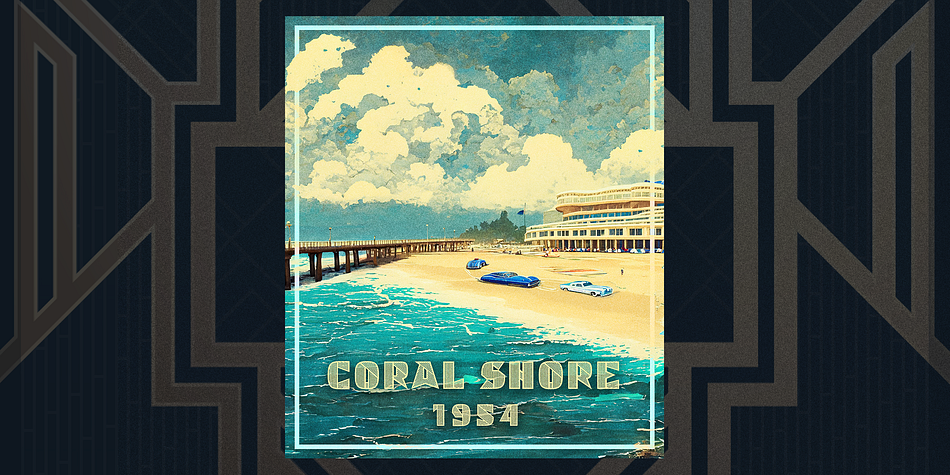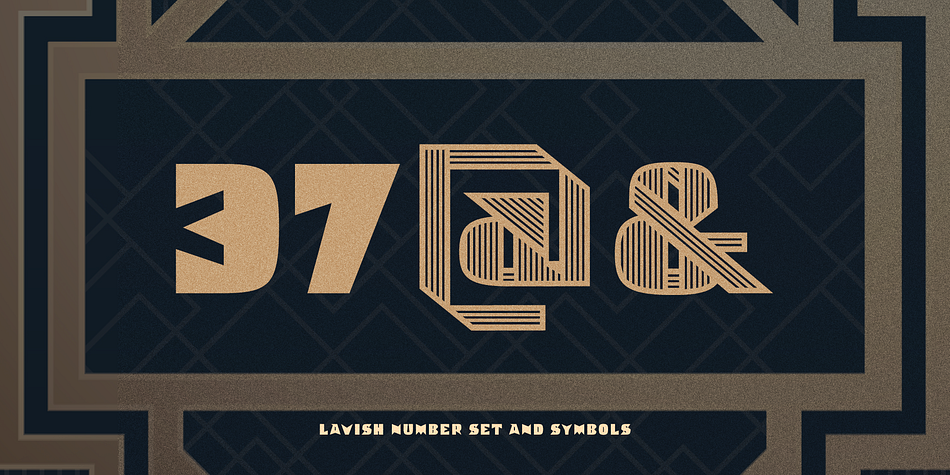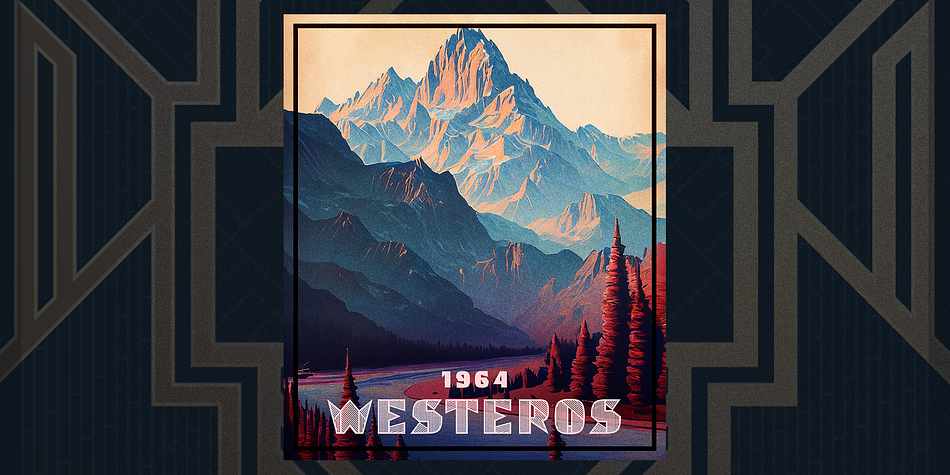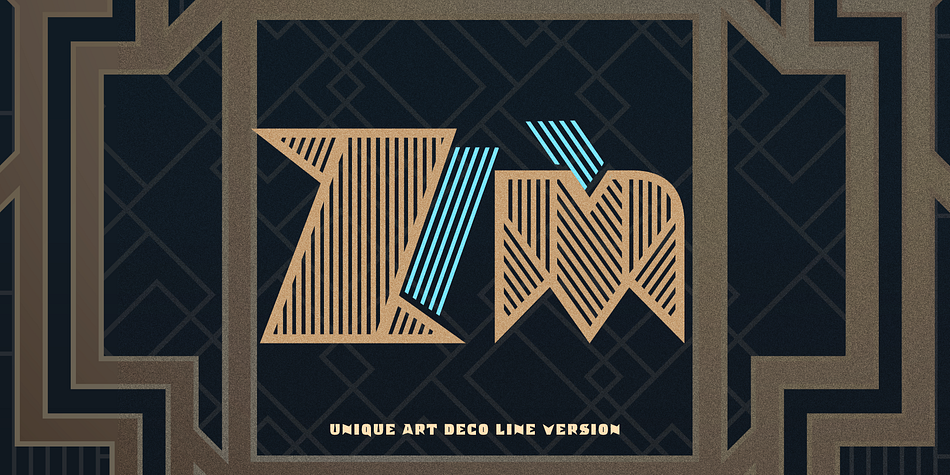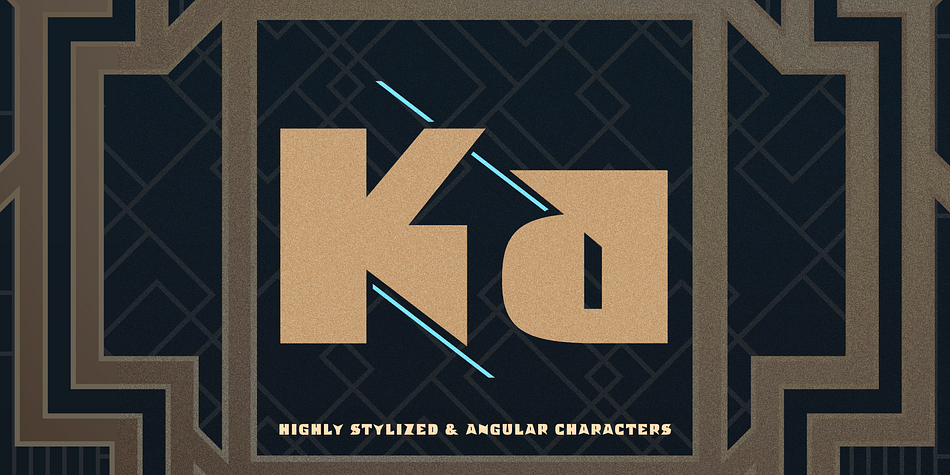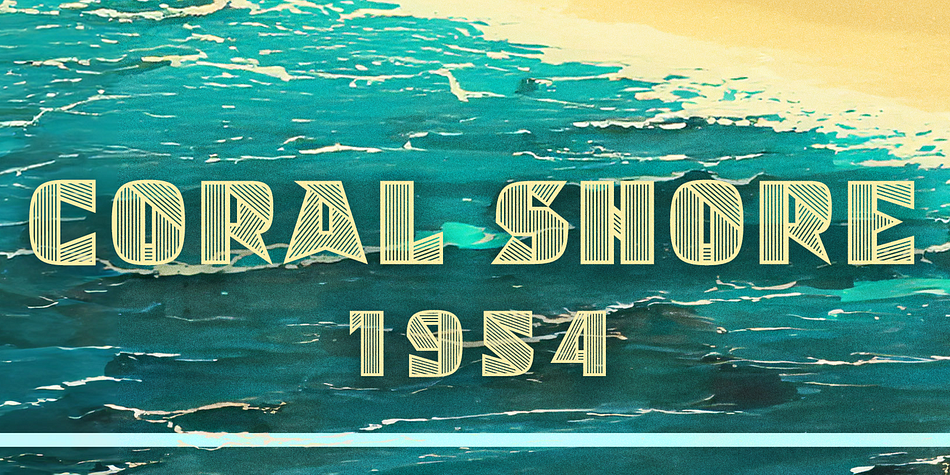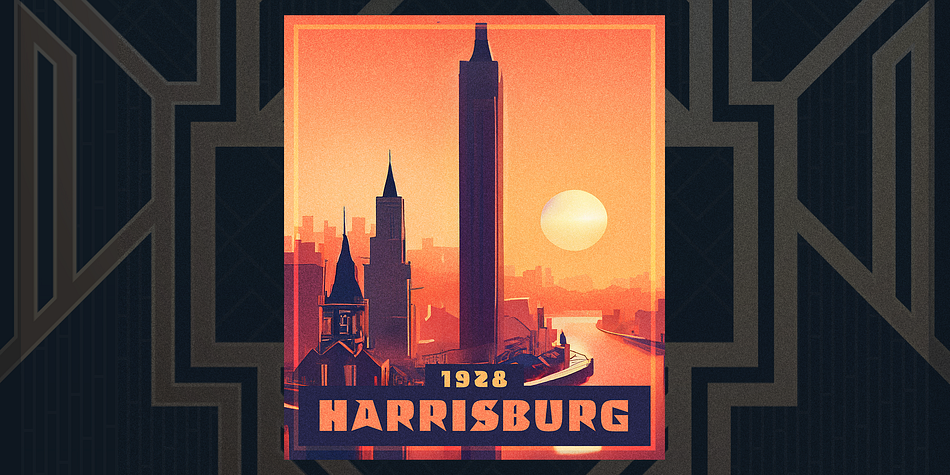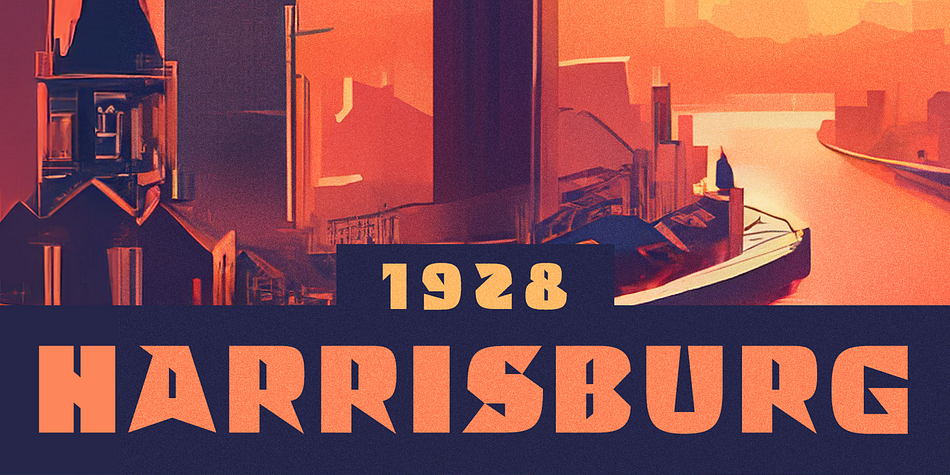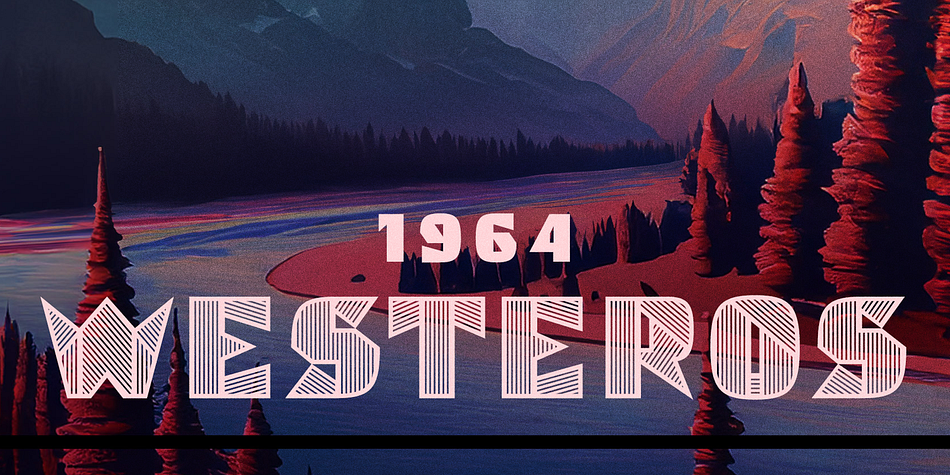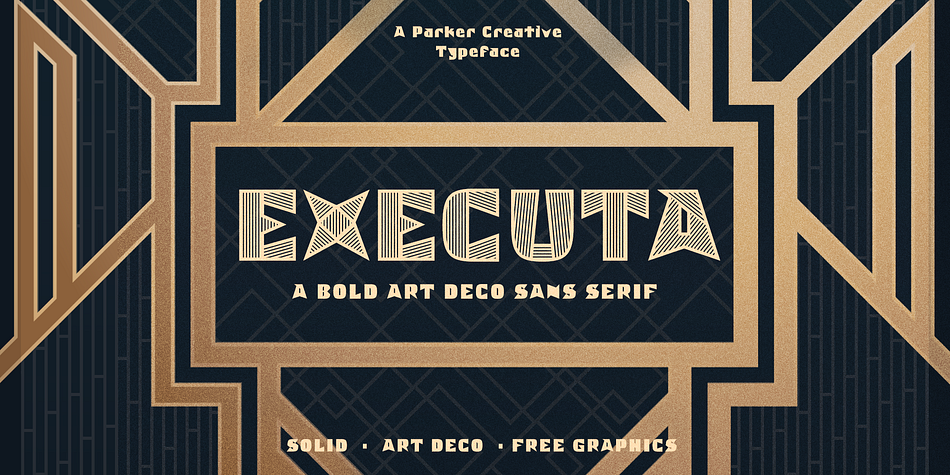
Executa
Executa is a sans serif font family. This typeface has two styles and was published by Parker Creative.
Inspired by vintage posters design of the 1930s, Executa is a totally original and striking bold sans serif with many distinct features. Set in an era when Futura dominated the design world, Executa marries the idea of Futura’s simplistic geometric shape concepts with some wild and lavish ideas of the previous Art Deco movement.
Executa features super sharp edges (Capital R, V, K), an extra bold weight, experimental flourishes, a beautiful lowercase and number character set, and meticulous spacing/kerning.
Executa Art Deco is a beautiful variation of the typeface, featuring a stylistically positioned line pattern made popular by Art Deco. The various line pattern angles are unique on each character, overlapping to create a new sense of dimension within the character itself, almost like origami.